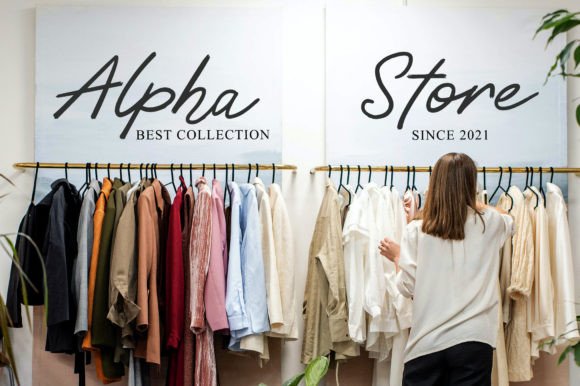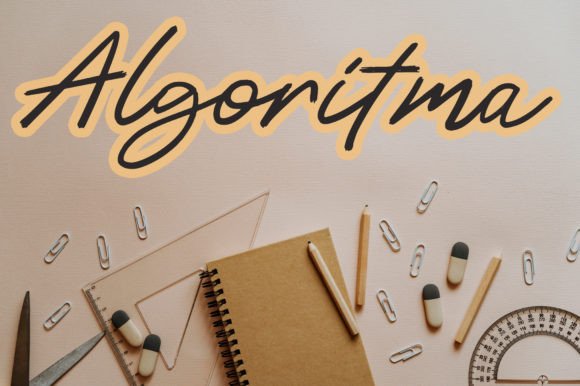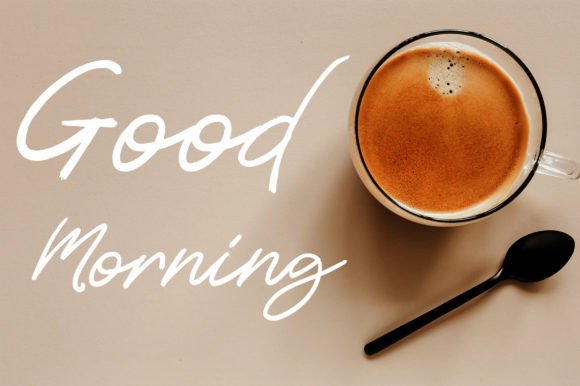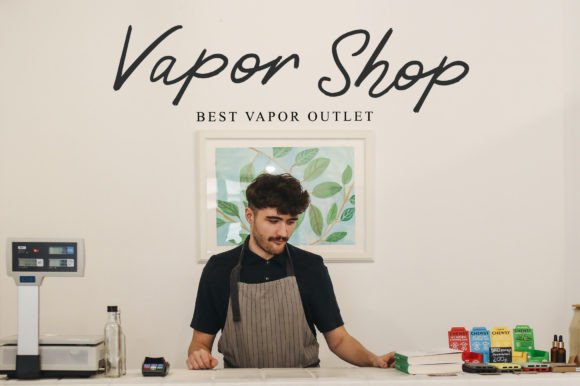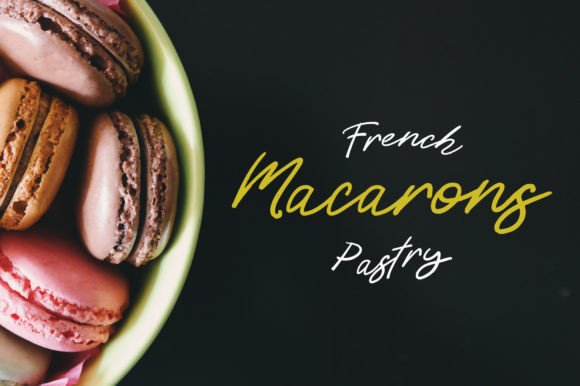
About Magical Font
Magical is a handwritten font with a romantic touch. Masterfully designed to become a true favorite, this font has the potential to bring each of your creative ideas to the highest level!